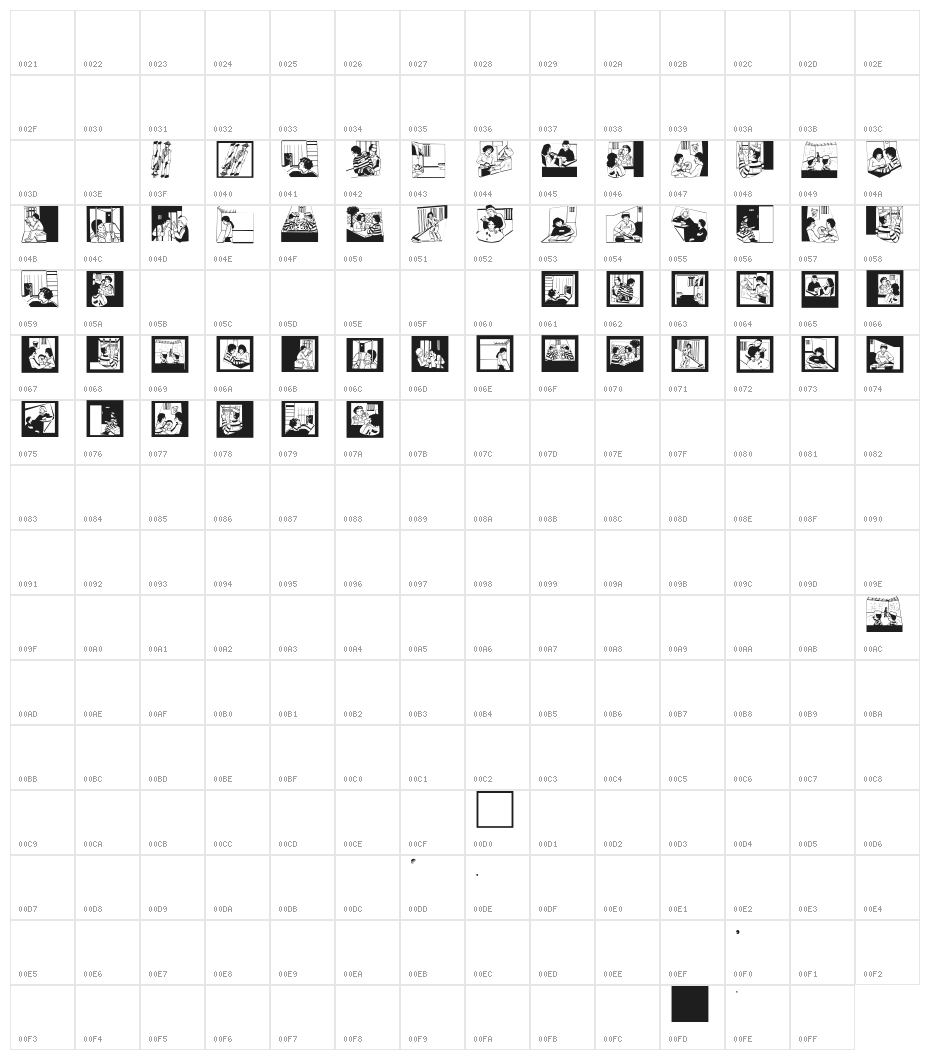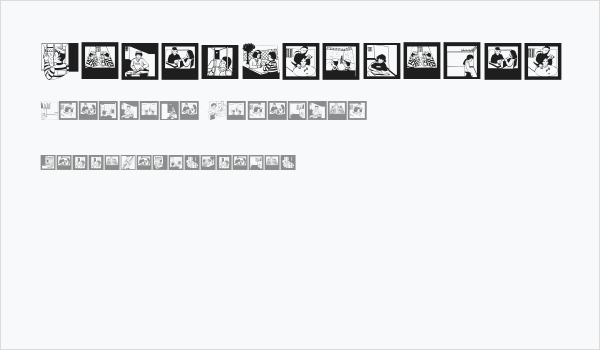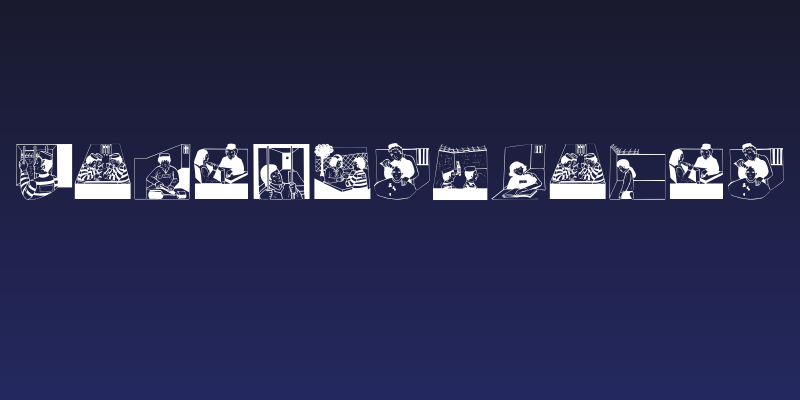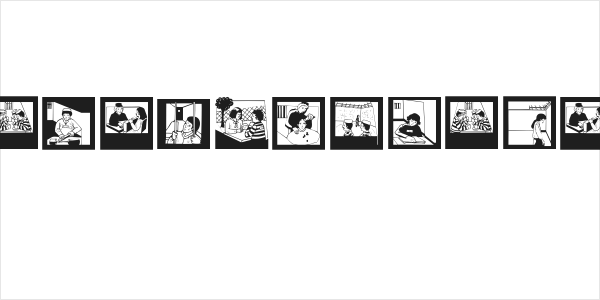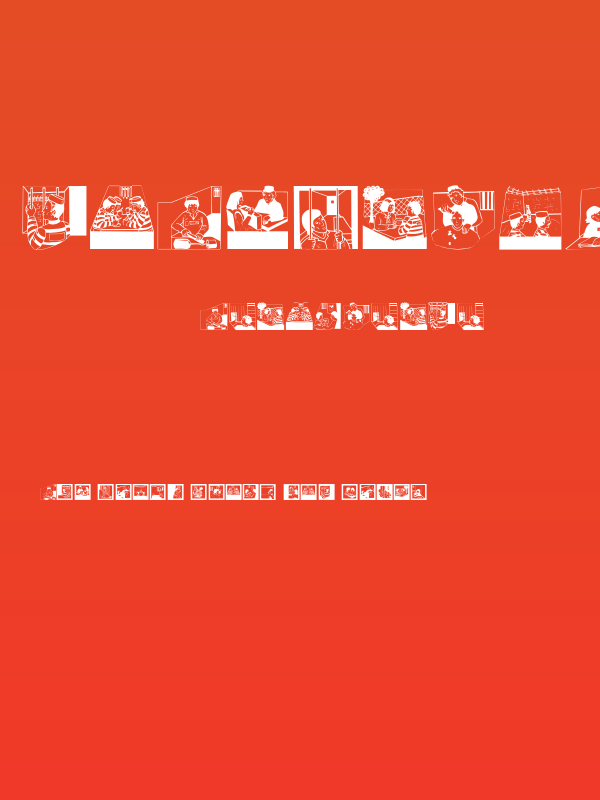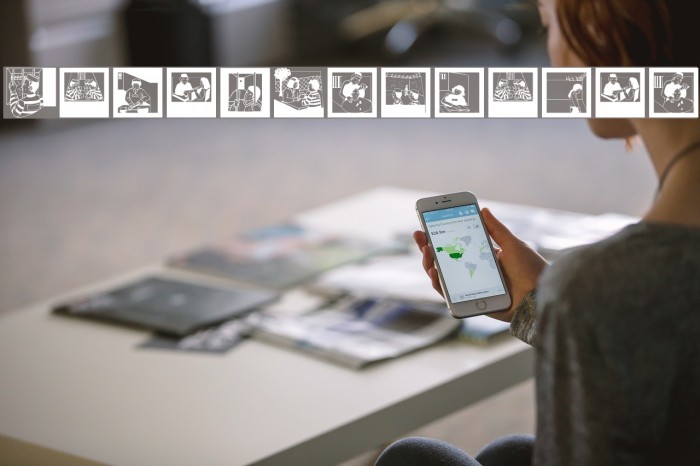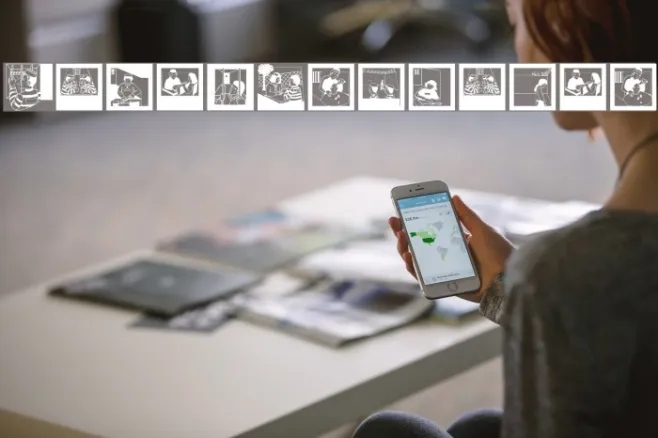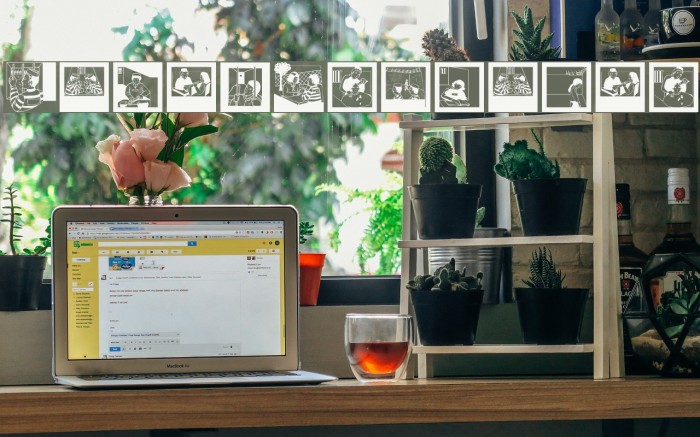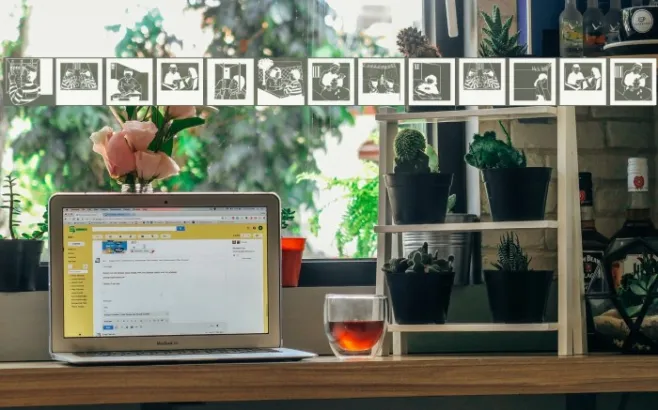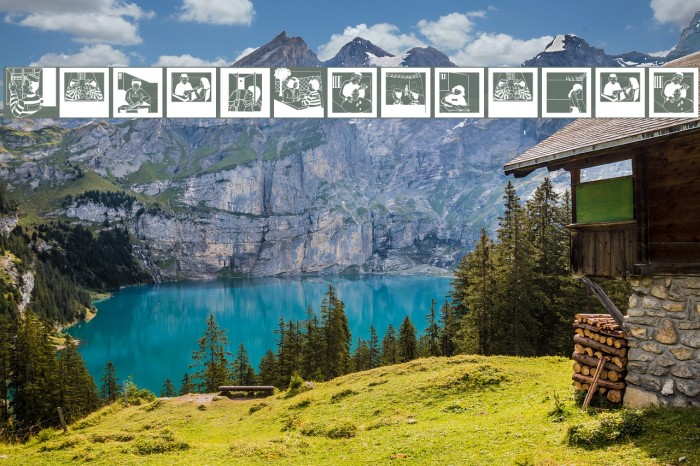
HotelPrisoner Font
HotelPrisoner Description
This is a decorative and illustrative font where each character is represented by a unique black and white comic-style illustration. The illustrations depict various scenes and characters, giving each letter a distinct and artistic appearance. The font is highly visual and narrative, making it more suitable for creative and thematic projects rather than traditional text applications. The characters are enclosed in square frames, adding a uniformity to the overall design. This font is ideal for projects that require a storytelling element or a playful, artistic touch.
| Use Case | Logos, Posters, Creative Projects |
| Proposed Projects | Ideal for comic books, graphic novels, themed posters, and creative storytelling projects. |